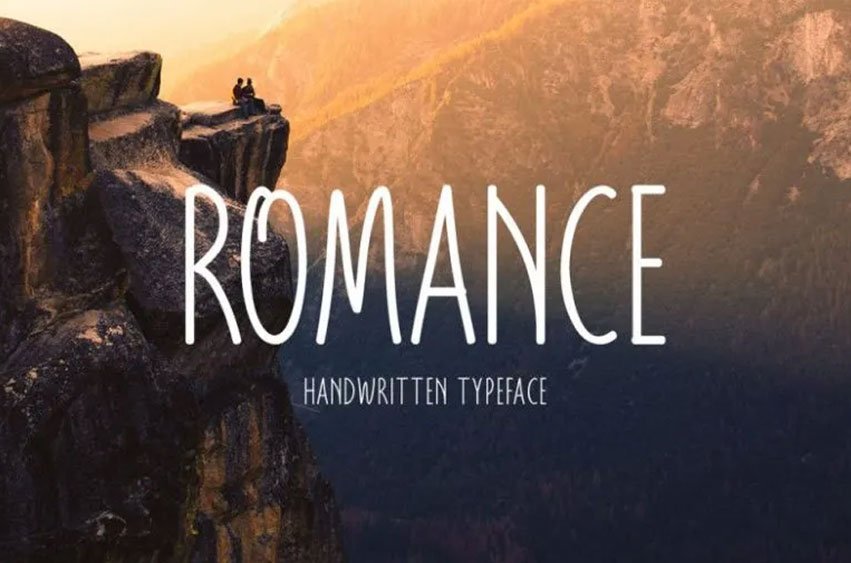
Romance Font
Romance Font is the best handwritten font for quotes, posters, printable and others related works. It is simple and can be quickly understood while still maintaining a half-script feel.